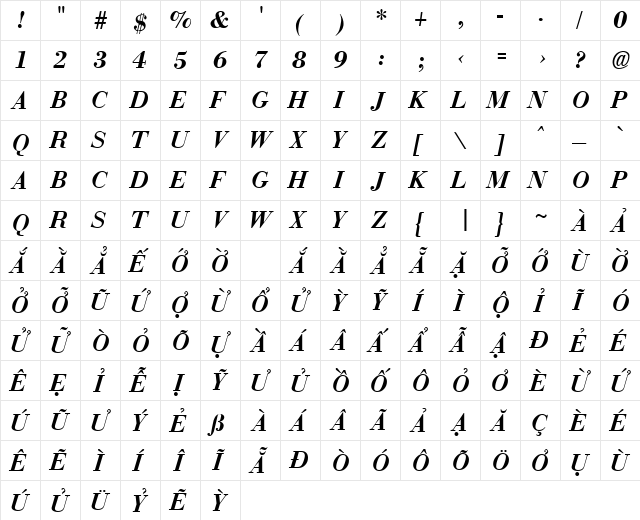
VPS Con Son Hoa Bold Italic
Design Context for VPS Con Son Hoa Typeface
VPS Con Son Hoa takes a measured approach to typography — its balanced proportions and neutral character make it a reliable workhorse for both digital and print work. The dynamic lean of this cut emphasises speed and emphasis in any layout. The heavy weight commands attention and anchors typographic hierarchies.
Pro Tip: Try VPS Con Son Hoa for annotation and caption copy alongside an upright companion — the contrast in angle creates a dynamic but ordered typographic system.